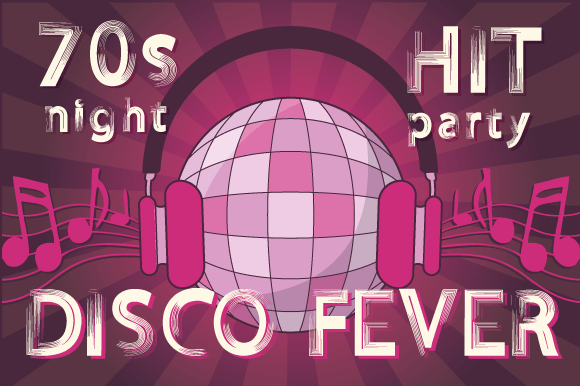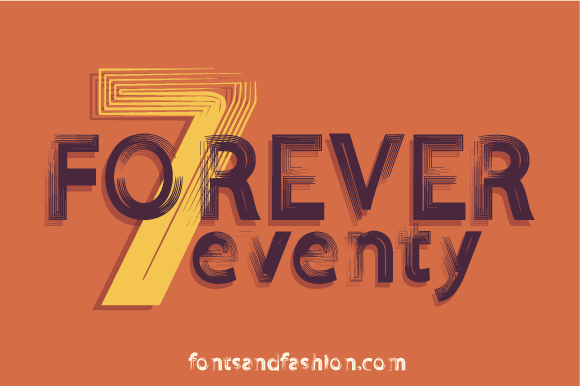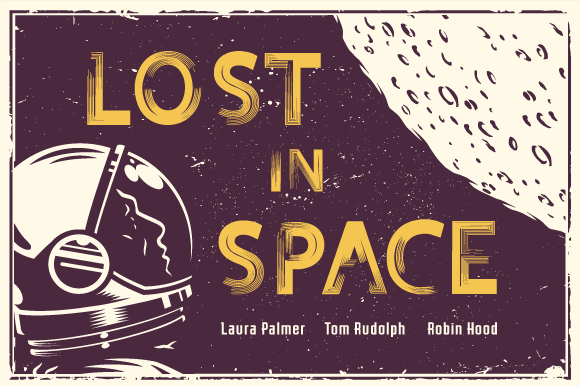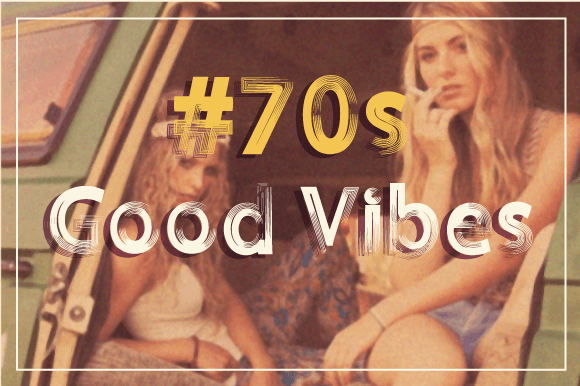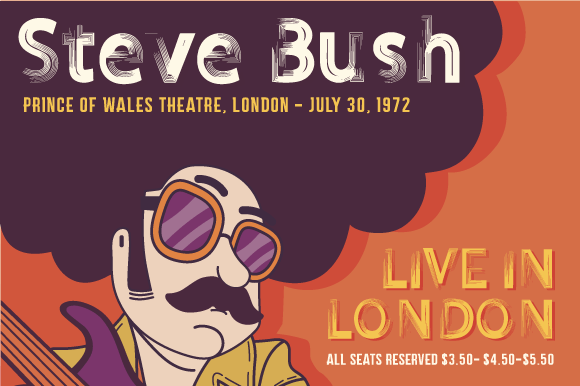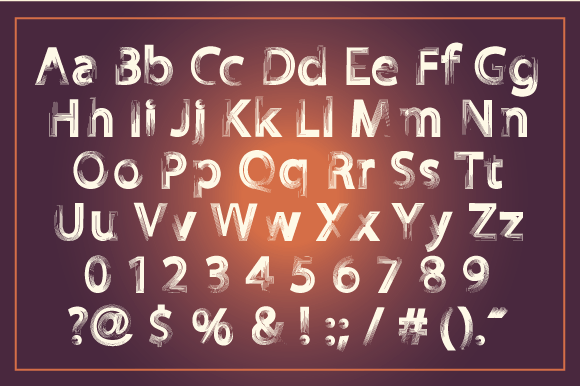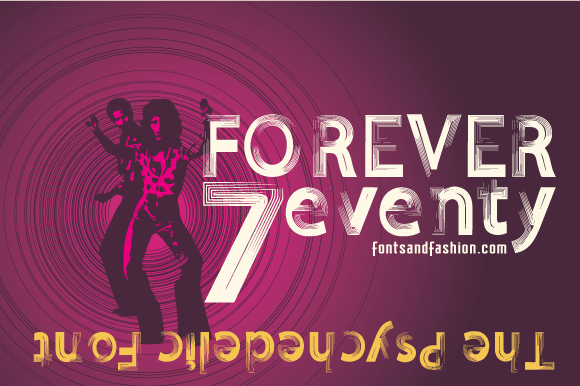
Forever 7eventy Font: Get Ready to Groove with the Retro 70s Vibes!
The 1970s – a decade of liberation, self-expression, and some of the most iconic fashion trends that still influence us today. The era of hippy style, bohemian flair, burnt colors, and black accents with just the right amount of studs. It’s a look that’s all about exuberance without excess, and it’s making a big comeback. At the heart of this retro revival is the “Forever 7eventy” font, a typeface that’s as vibrant and energetic as the music that defined the decade.
The Inspiration Behind Forever 7eventy
The “Forever 7eventy” font is more than just a typeface – it’s a visual representation of the carefree spirit and zest for life that characterized the 1970s. Imagine the grooves of a vinyl record coming to life in a font that’s as playful as it is nostalgic. This font captures the essence of disco music’s heyday, transporting you and your designs back to an era of musical magic and unbridled joy.
A Modern Take on Retro Charm
What sets “Forever 7eventy” apart is its modern interpretation of classic vinyl aesthetics. The font features lines that aren’t always consecutive, with a broken and slightly blurred effect that gives it a bold, contemporary edge. This innovative approach ensures that the font feels both retro and up-to-date, perfect for designers looking to infuse their projects with a dose of nostalgia and modern flair.
Features of Forever 7eventy Font
- Comprehensive Character Set: The “Forever 7eventy” font boasts an impressive 351 glyphs, including a wide range of multilingual characters. This extensive character set ensures that you can use the font for a variety of projects, from English to numerous other languages.
- Versatility: Whether you’re designing posters, business cards, t-shirt prints, or any other creative project, “Forever 7eventy” is the perfect choice. Its unique style and charm can add a touch of the 70s to any design, making it stand out.
- Retro Disco Vibes: The font’s design is inspired by the grooves of vinyl records, giving it an authentic retro feel that’s synonymous with the disco era. It’s the perfect way to bring the unmistakable sound of a 70’s disco party into your designs.
How to Use Forever 7eventy in Your Designs
Incorporating the “Forever 7eventy” font into your designs is a great way to add a playful, retro touch. Here are a few ideas to get you started:
- Posters and Flyers: Create eye-catching posters and flyers for events, concerts, or parties with a 70s theme. The font’s bold and energetic style is sure to grab attention.
- T-Shirt Prints: Design unique and stylish t-shirt prints that will appeal to anyone who loves the retro vibe. The font’s clarity and style ensure that your designs will look great on apparel.
- Business Cards: Stand out with business cards that reflect your personality and style. The “Forever 7eventy” font can add a touch of whimsy and creativity to your professional cards.
The “Forever 7eventy” font is a fantastic tool for designers and crafters looking to infuse their projects with the vibrant energy of the 1970s. Its unique blend of retro charm and modern style makes it versatile and engaging, perfect for a wide range of creative endeavors. Whether you’re a fan of disco music, a lover of retro fashion, or simply looking for a font that stands out, “Forever 7eventy” is sure to inspire. So why not take a step back in time and let the grooves of the 70s guide your design? With “Forever 7eventy,” you’ll be creating designs that are not only visually stunning but also full of life and personality.
Embrace the fun, the music, and the fashion of the 1970s with the “Forever 7eventy” font. Let your designs speak to the cheerfulness and zest for life that defined an era. Get ready to groove with a font that’s as timeless as it is trendy.